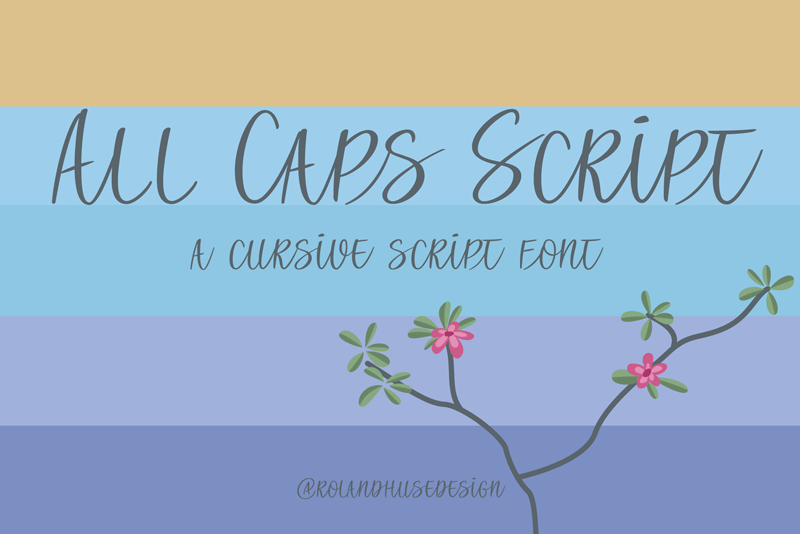
�All Caps Script� is a casual handwritten script made of all capital letters. In place of lowercase set there are small caps. Ligatures in this version: SA and TT Please note that this is a demo version. free for personal use only. For commercial use pleas purchase a commercial license via PayPal from $15. Full version with accents and special characters, inquiries, customization, extra characters, accents please write me at fonts@rolandhuse.com for more of my fonts visit https://www.creativefabrica.com/es/designer/roland-huse-design/ref/2092 Follow me on Instagram @rolandhusedesign |